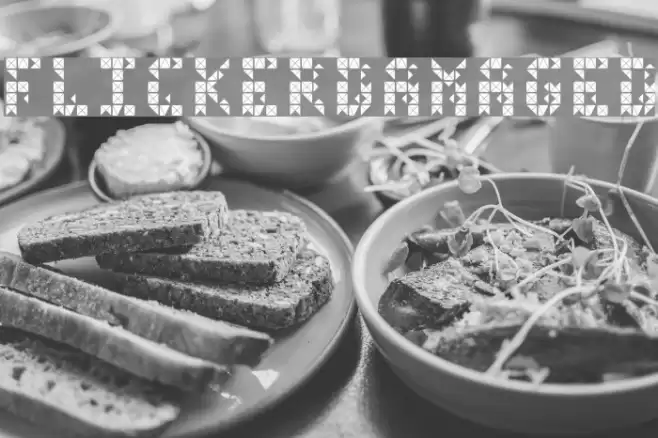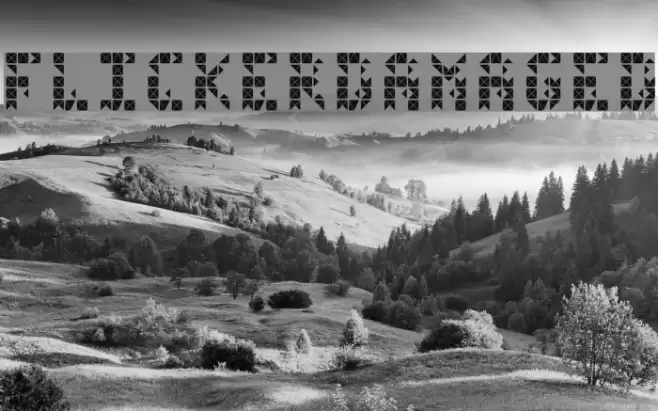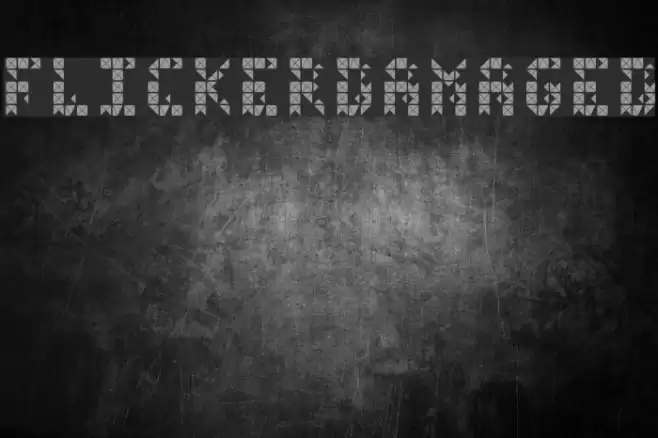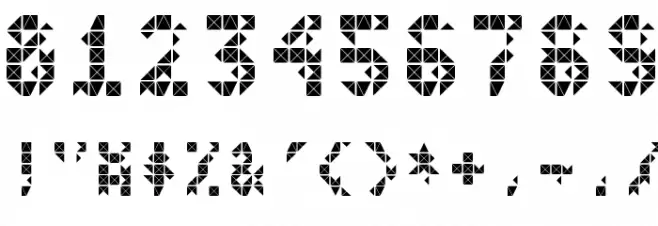
FlickerDamaged Font
FlickerDamaged Description
This font features a unique geometric design, with each character composed of small triangular shapes that create a mosaic-like appearance. The bold and angular style gives it a modern and edgy feel, making it stand out in any design. The uppercase and lowercase letters maintain a consistent structure, while the numbers and special characters follow the same geometric pattern, ensuring uniformity across all elements. The font's distinct look is ideal for projects that require a strong visual impact.
A bold, geometric font with a mosaic-like appearance from Uncategorized fonts.
- Proposed Projects: Ideal for modern branding, posters, album covers, and digital artwork that require a striking and unconventional typeface.